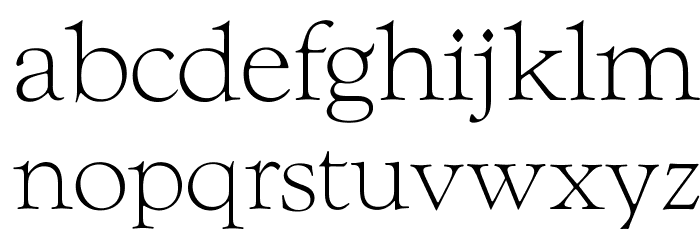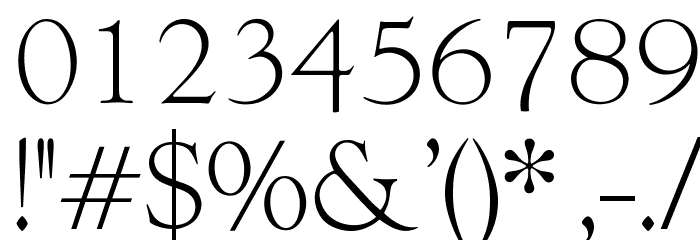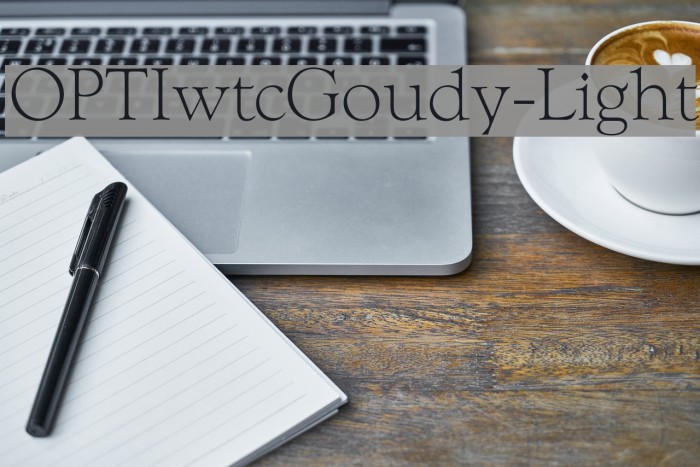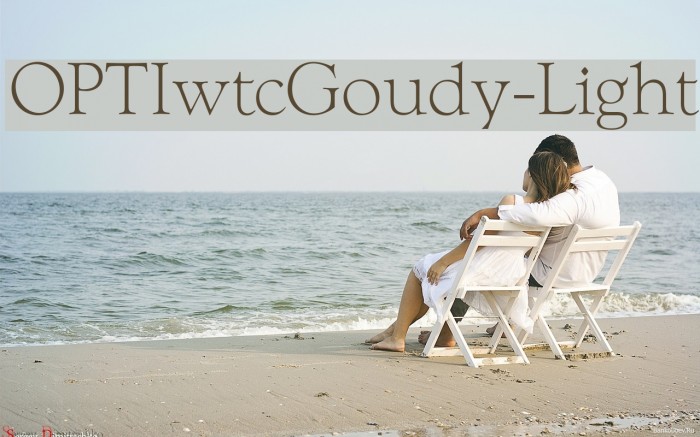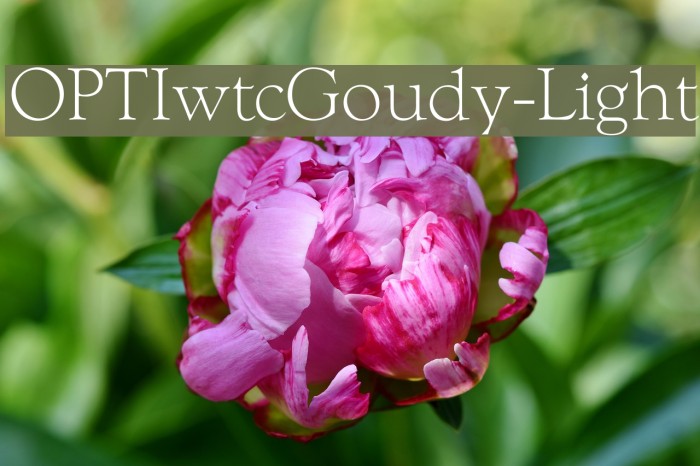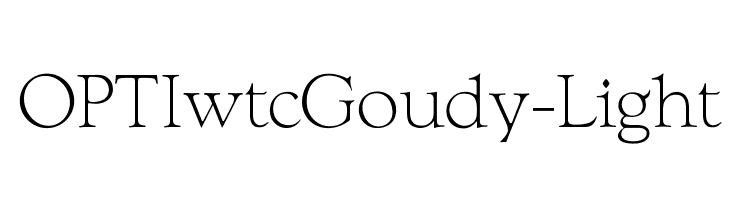
OPTIwtcGoudy-Light Font
This font exhibits a classic serif style with elegant, flowing lines and a refined appearance. The characters have a traditional look, featuring slight variations in stroke width that add a touch of sophistication. The serifs are pronounced yet delicate, contributing to a timeless aesthetic. Uppercase letters are stately and well-proportioned, while lowercase letters maintain a harmonious balance. The numerals are clear and distinct, ensuring readability. Special characters are thoughtfully designed, maintaining the overall elegance of the typeface.
A classic serif font with elegant, flowing lines and refined details.
- Proposed Projects: Ideal for book typesetting, formal invitations, and branding materials that require a touch of classic elegance.
- Overall Style: Classic
- Use Case: Body text, Headlines, Formal documents